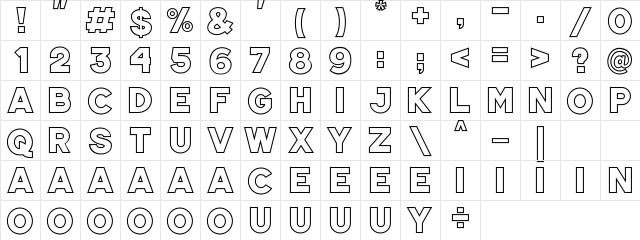
JUNAR OUTLINE Regular
| Designer | Adde Sant |
Design Context for JUNAR OUTLINE Typeface
JUNAR OUTLINE brings ornamental detail and strong personality to headlines and identities, where visual impact matters more than quiet functionality.
Font Pairing: Pair with a clean neutral sans-serif for body copy to let JUNAR OUTLINE JUNAR OUTLINE's character lead without overwhelming the composition.
Pro Tip: Treat JUNAR OUTLINE as the centrepiece of your typographic hierarchy. One strong heading set in a decorative face can carry an entire layout.